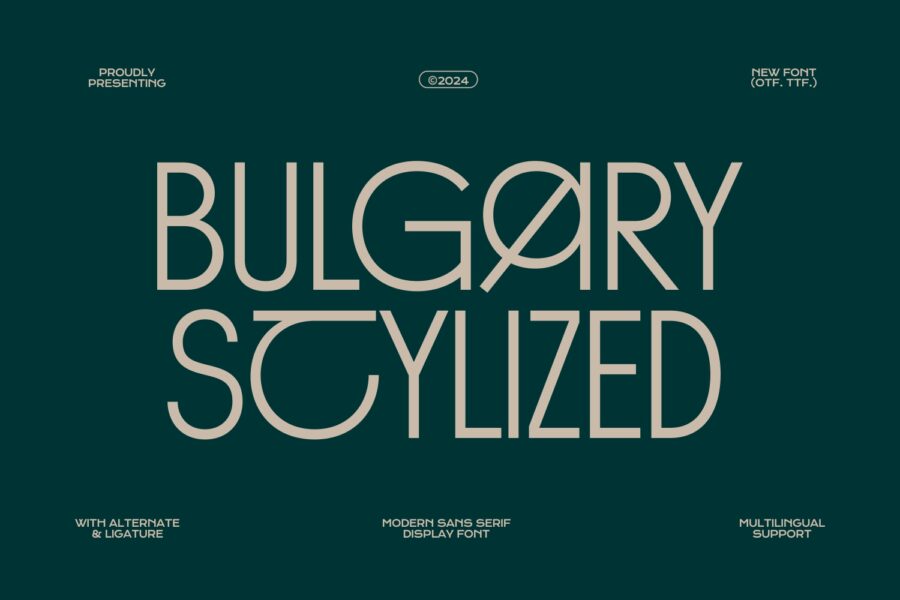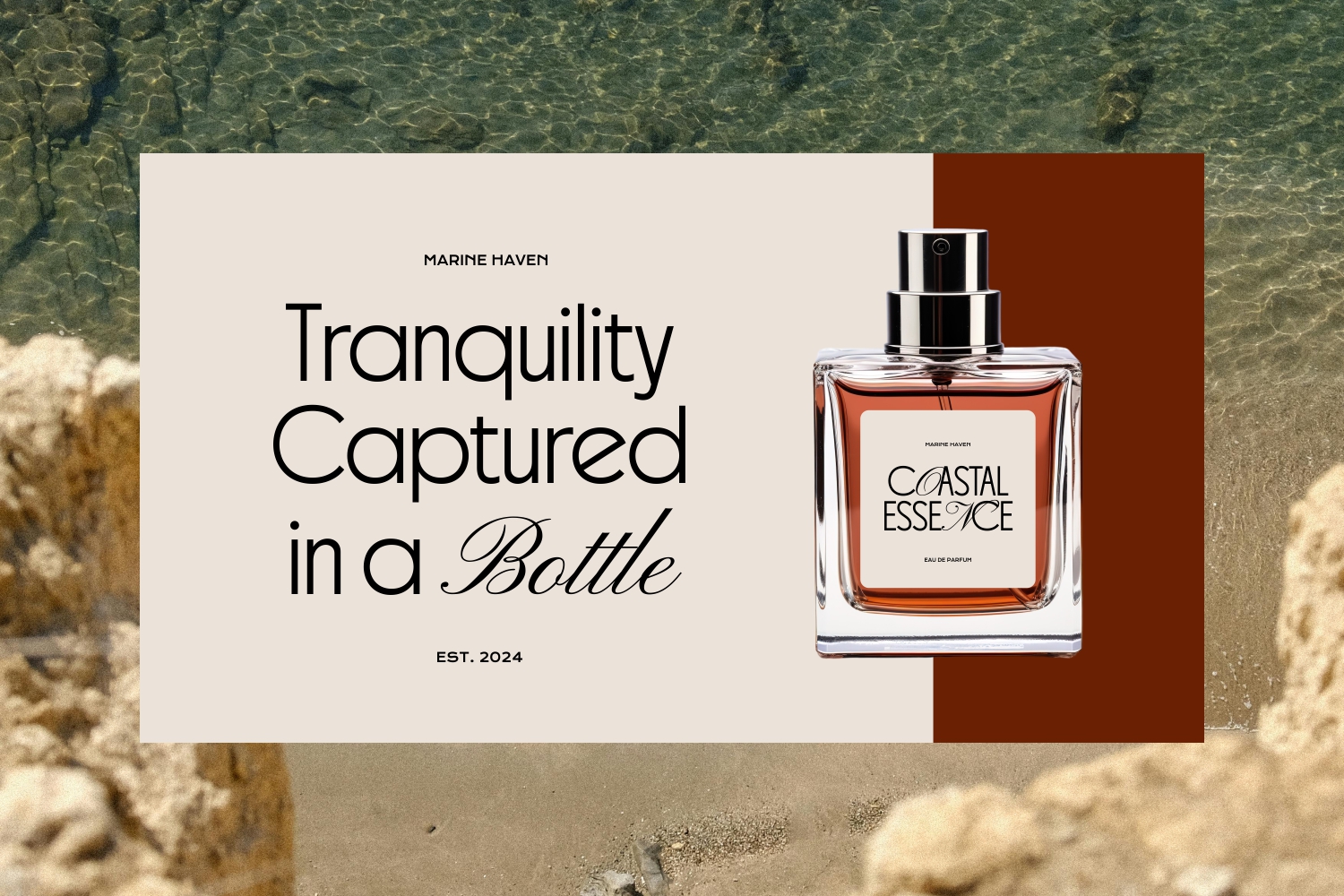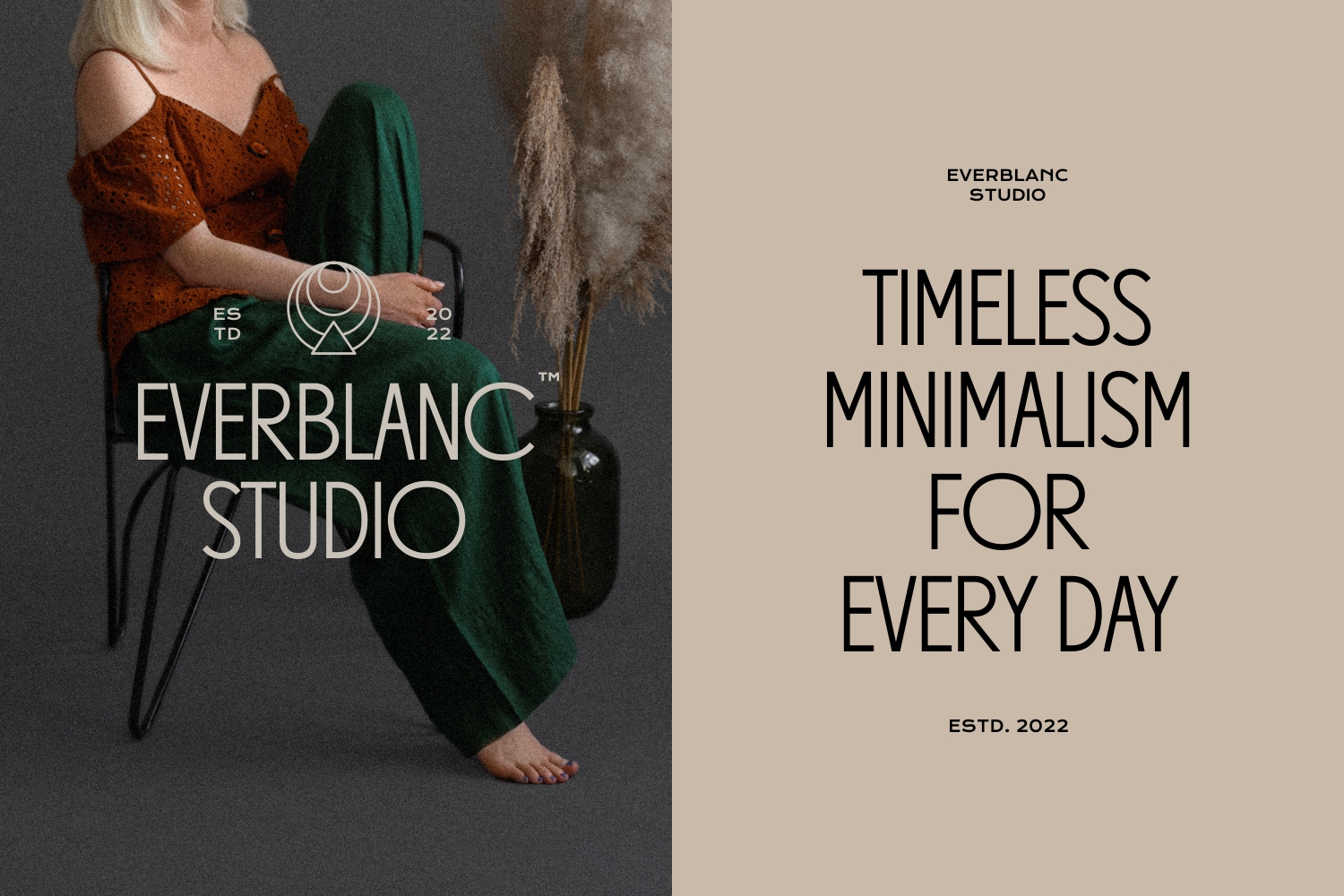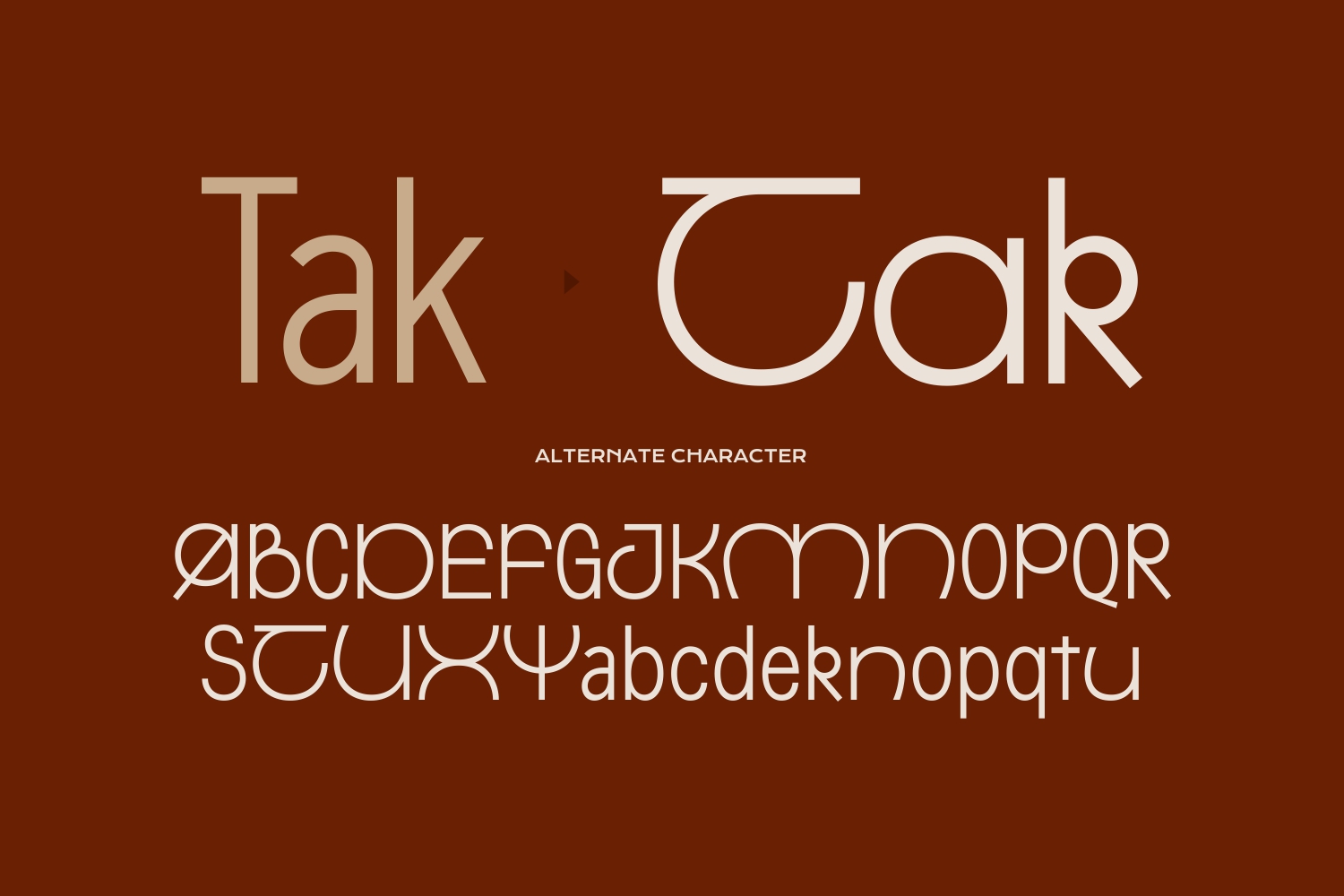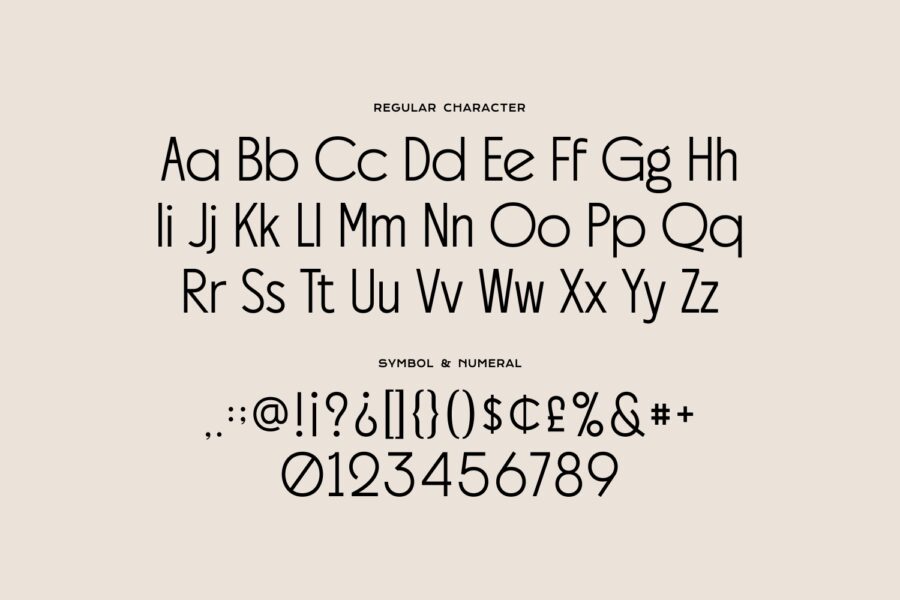
Bulgary Stylized
Bulgary Stylized is a modern sans serif display font that blends high fashion elegance with sharp minimalism. Defined by its stylish geometry and unique alternate characters, Bulgary brings a contemporary luxury feel that’s perfect for editorial layouts, logos, branding, and packaging. The font stands out with its sleek uppercase construction and artistic ligatures that elevate every composition.
Featuring regular and alternate sets, symbols, multilingual support, and refined stylistic details, Bulgary Stylized is crafted to express sophistication. Whether used in perfume branding, fashion lookbooks, or design-forward projects, this font offers a distinctive yet versatile visual voice for modern creatives.
Bulgary Stylized